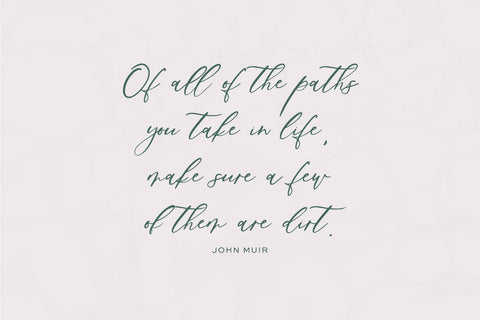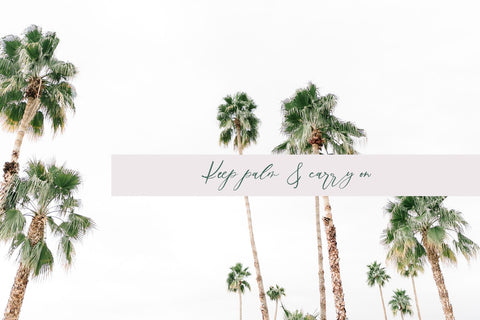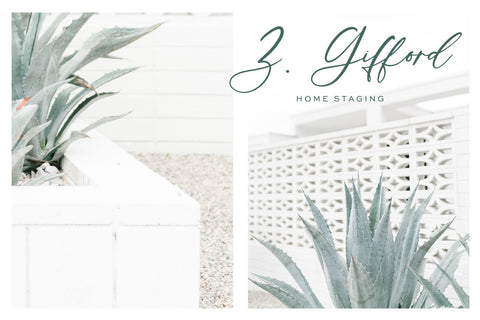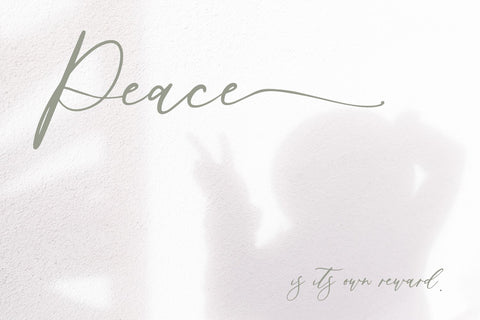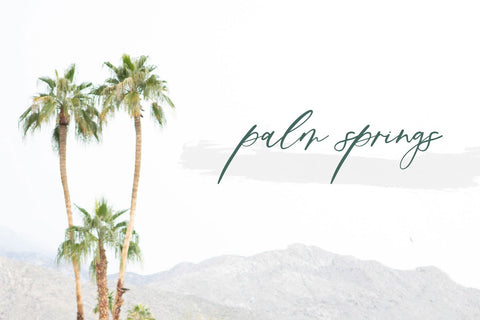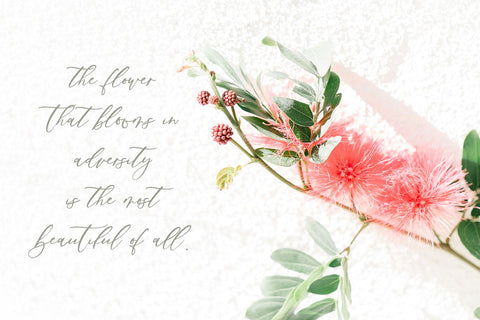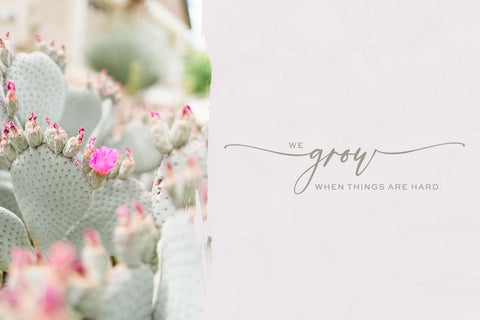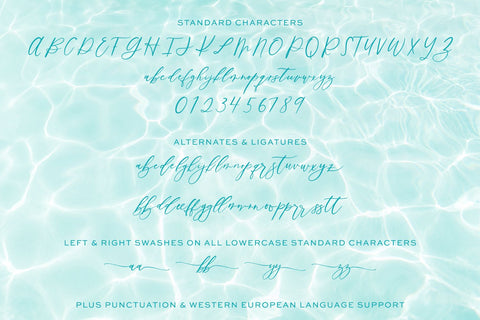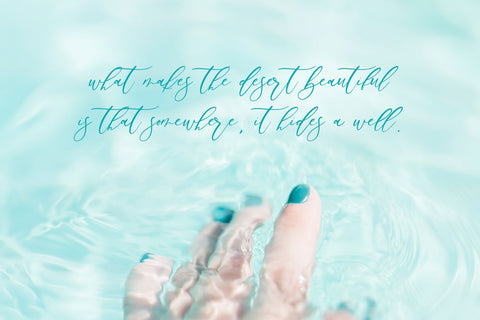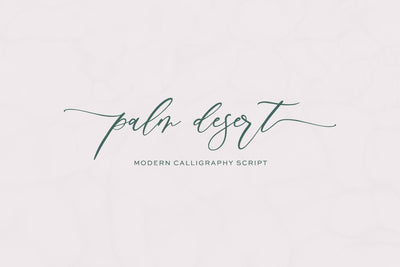
Palm Desert Modern Calligraphy Font
Introducing Palm Desert Modern Calligraphy Font, a beautiful flowing font with gorgeous features. Palm Desert Modern Calligraphy Font includes alternates, ligatures, and left & right swash options, making it a truly powerful, robust font.  Overall, Palm Desert is feminine, flowy, with just a touch of effortlessness.  Palm Desert could be used for feminine designs like woman-owned or woman-centric brands, wedding invitations, or projects requiring a handwritten element.
Palm Desert Modern Calligraphy Font is an excellent fit for:
- logo design + branding projects
- wedding invitations or wedding logos
- print design, like magazines & flyers that need a bold statement font
- header elements + websites that draw attention
- quote graphics for social media
- projects in the fashion industry, high end creatives, and luxury product lines
Palm Desert Modern Calligraphy Font includes:
- full upper + lowercase characters
- numbers + punctuation
- Western European Language Support
- 26 alternates
- 13 ligatures
- left and right swashes on standard lowercase characters